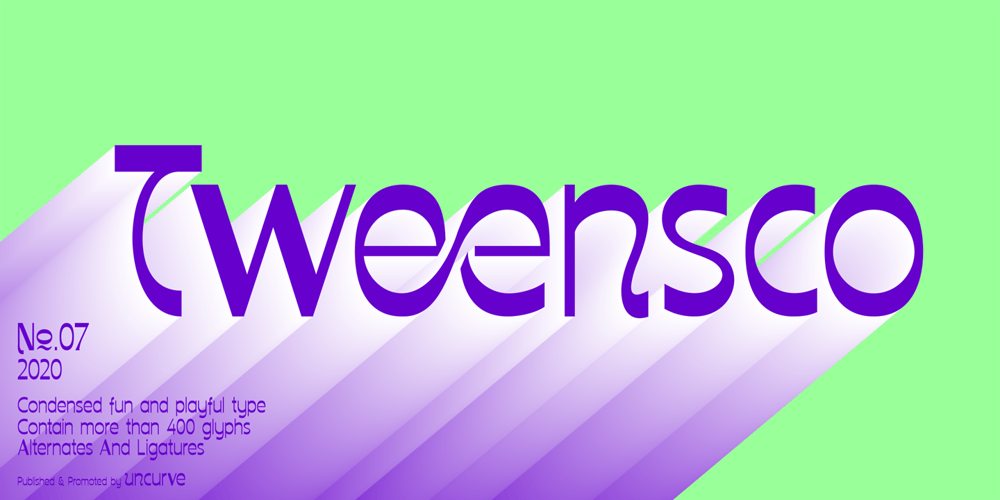
Tweensco Font Family was designed by Ferry Septian and published by Uncurve. Tweensco contains 1 styles and family package options. Tweensco is a thin font with a condensed style. It’s playful and feminine but still modern. It contains more than 400 glyph, alternates, multilingual support and ton of ligatures. Tweensco is perfect for headlines, posters, advertisements, logos, covers, magazines, editorials, quotes and more.